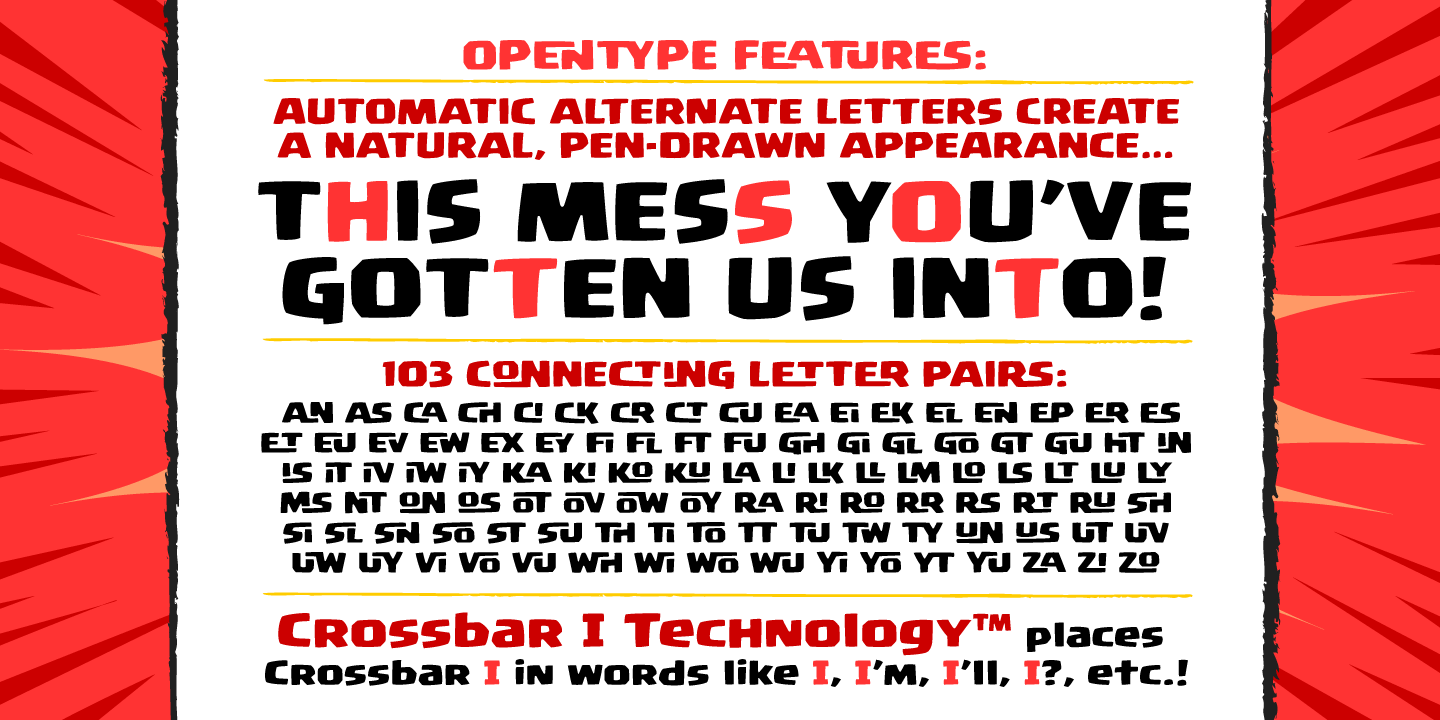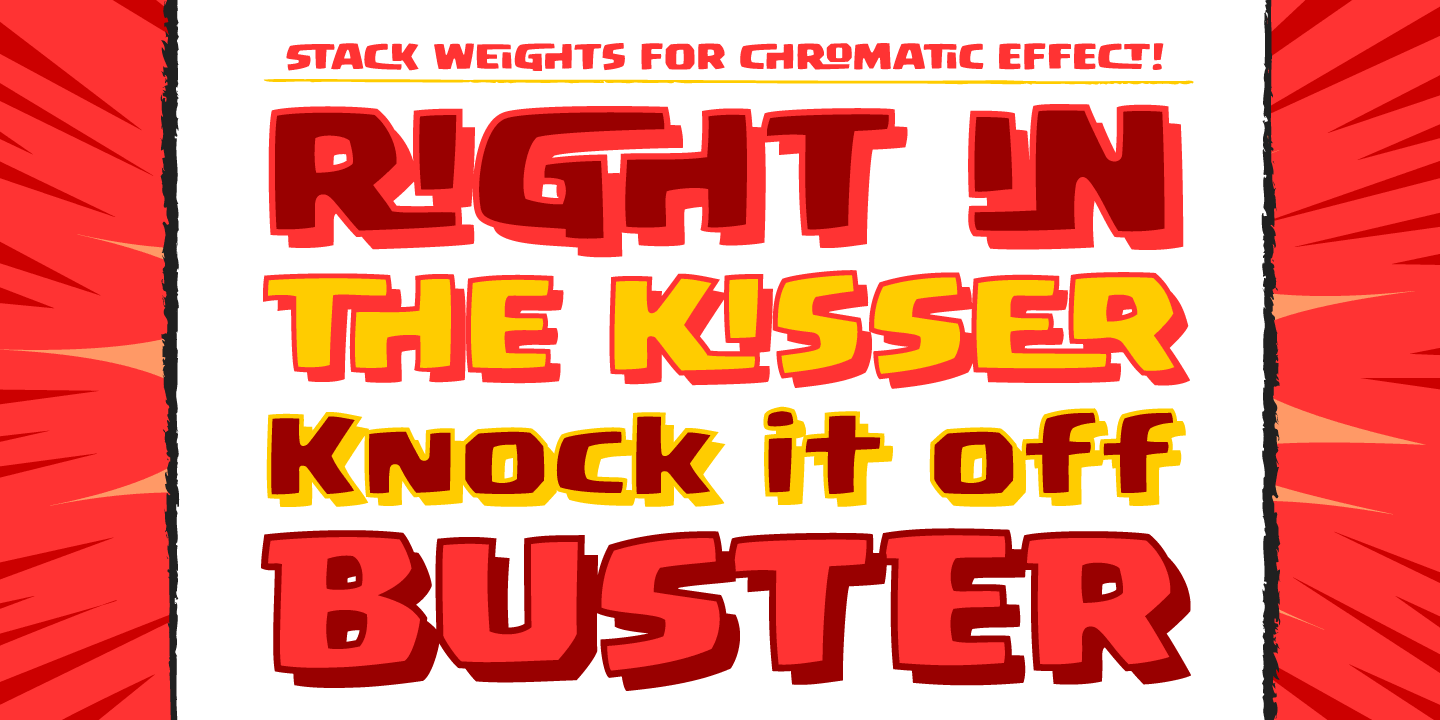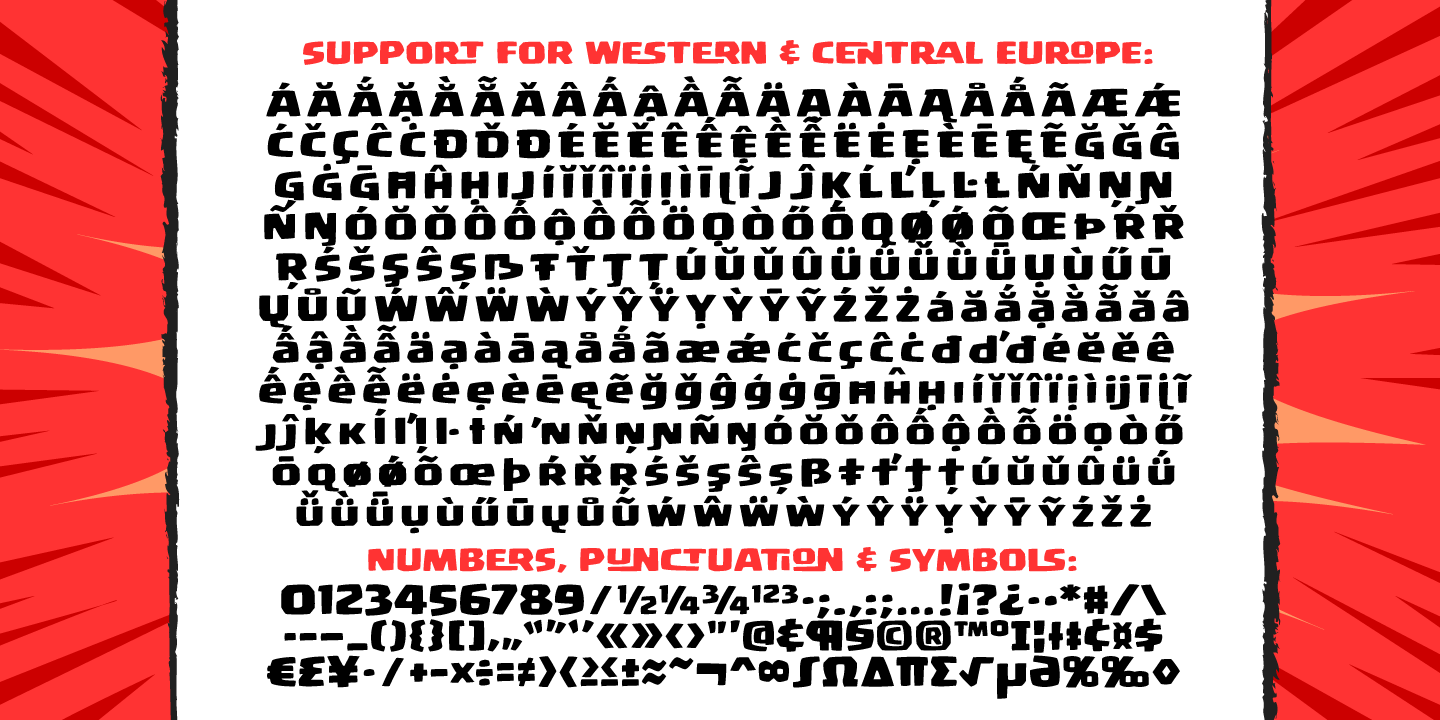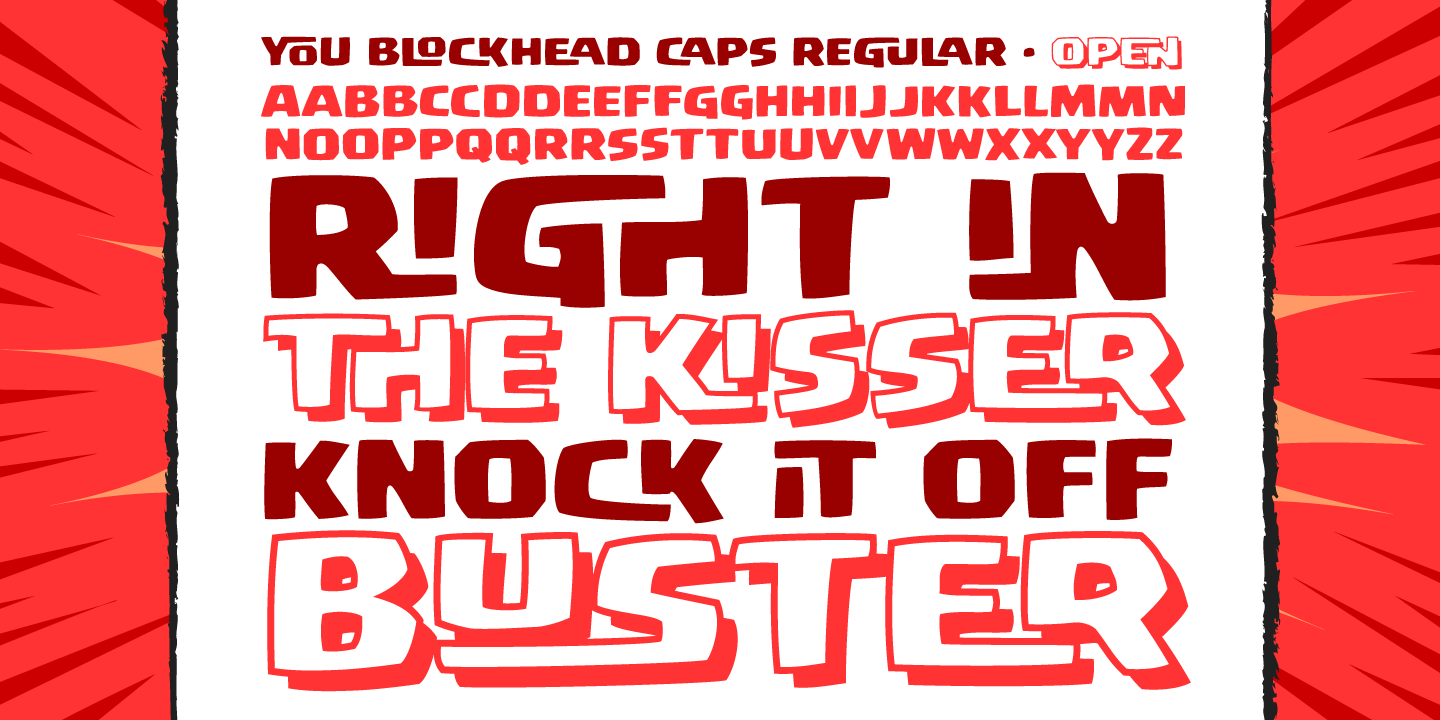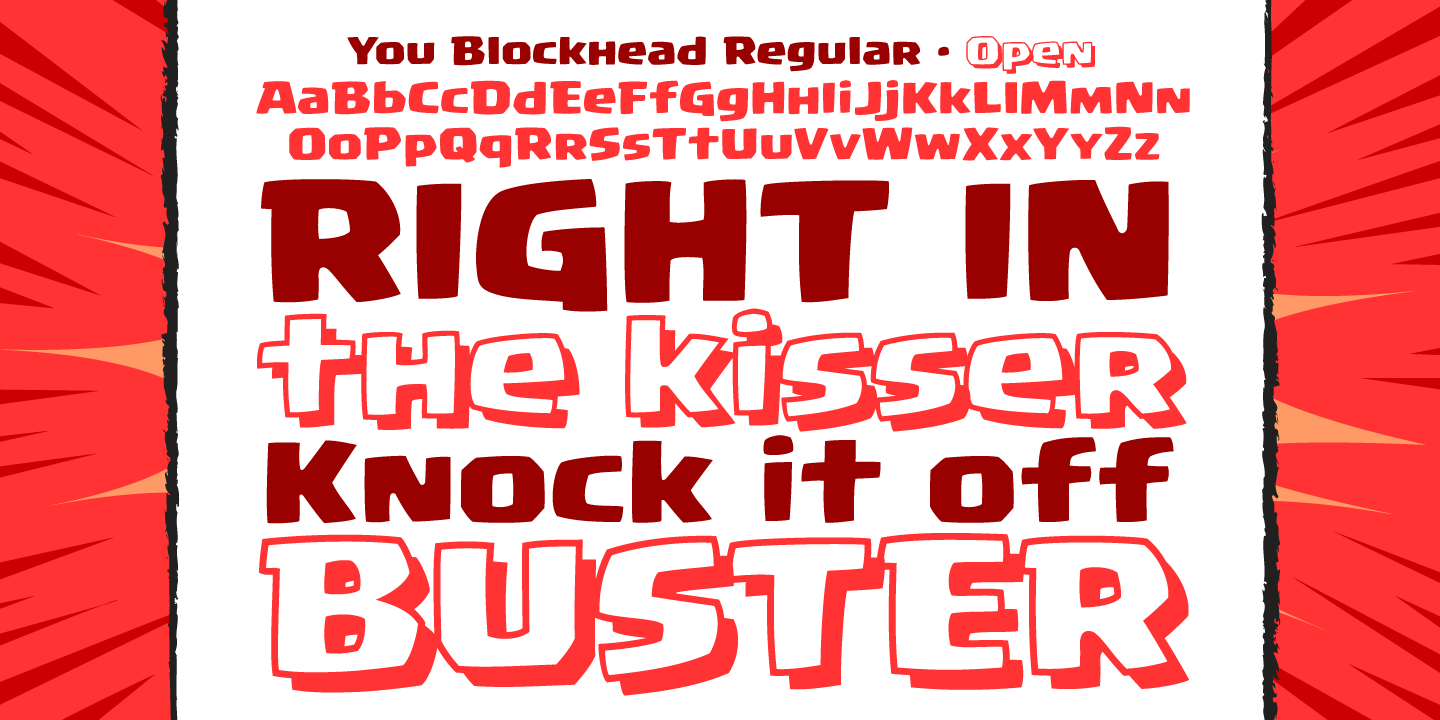
You Blockhead
Why you little Numbskull! Nitwit! Visigoth! Dimwitted Jackass! Interplanetary Goat! Highwayman! Sea-gherkin! Jellyfish! KnowNothing! Filibuster! Cachinnating cockatoo! Artichoke! Two-timing Troglodyte! Bald-headed budgerigar! Odd-toed Ungulate! Autocrat! Carpetseller! Duck-billed platypus! Dunderheaded coconut! Ectoplasm! Steamroller! Iconoclast! Kleptomaniac! Raggle taggle ruminant! Orangutang! Rapscallion! Ten thousand thundering typhoons! Whippersnapper! Billions of billious barbecued blue blistering barnacles -- you-you... YOU BLOCKHEAD!
With its sturdy stance and over 100 friendly interlocking letter pairs, this font was made famous in the logo and branding for the video game CLASH OF CLANS, and infamous in the logo and branding for the Image comic THE BEEF.